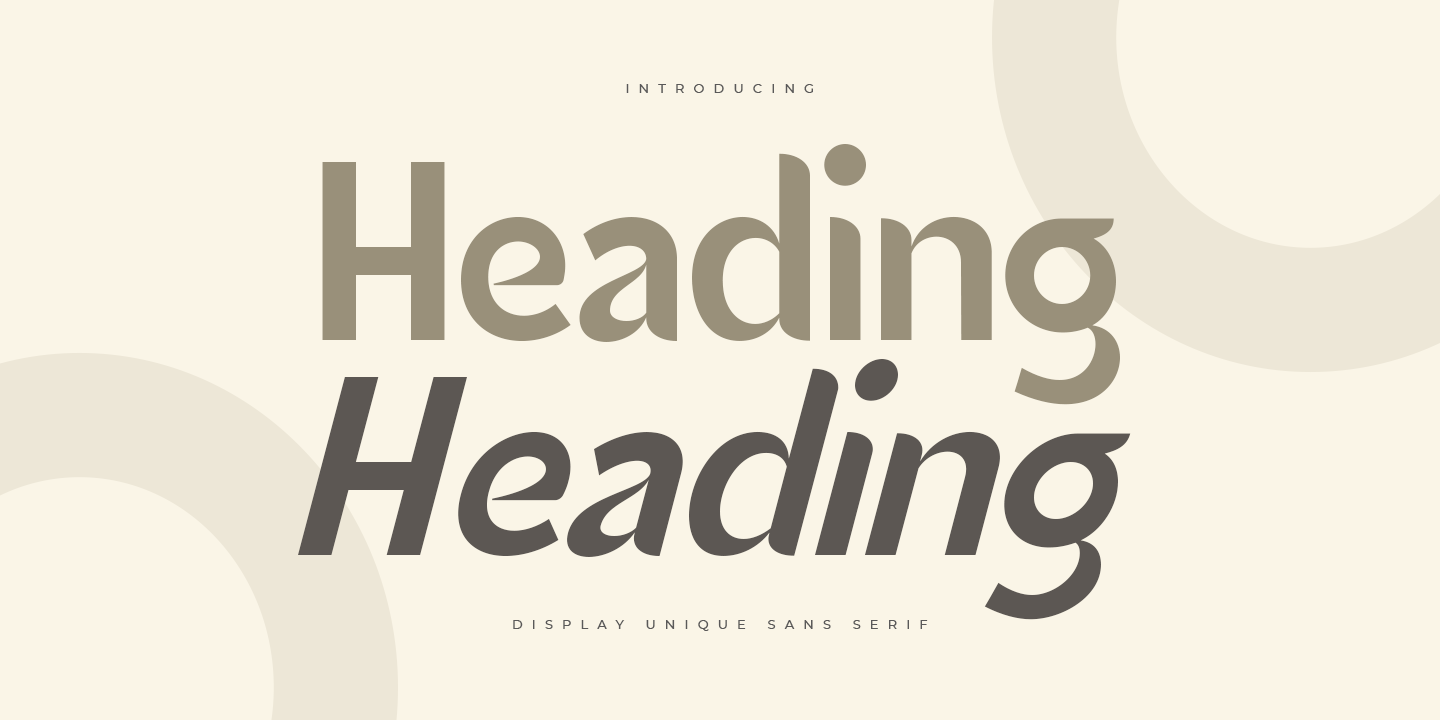
Heading Font is perfect for newspaper headlines, magazine titles, corporate presentations, website headers, book chapter titles, business proposals, academic papers, marketing brochures, press releases, annual reports, professional documents, and editorial layouts requiring strong visual hierarchy.
This font is exciting because it delivers commanding presence and exceptional readability that makes every headline and title impossible to ignore, featuring bold, authoritative letterforms designed specifically to capture attention and guide readers through content with crystal-clear visual hierarchy. The carefully engineered character proportions and optimized spacing ensure maximum impact at large sizes while maintaining perfect legibility across all media formats. Each letter demonstrates the fundamental principles of effective headline typography, creating text that leads readers naturally through information while establishing clear content structure and professional credibility.
The Heading Font family includes multiple weights from medium to black, with corresponding italic styles, condensed variants for space-efficient layouts, and comprehensive character sets supporting international languages. Professional versions often feature enhanced kerning pairs, stylistic alternates optimized for headline use, and extended punctuation sets designed specifically for editorial and corporate applications.
Whether you're developing professional publications, creating impactful marketing materials, or designing content-heavy websites, Heading Font Free Download provides the authoritative presence and structural clarity your project needs to organize information effectively and guide reader attention. This typeface ensures your most important messages receive the prominence they deserve while maintaining consistent visual hierarchy throughout your content. The font's versatile design makes it ideal for both traditional print media and modern digital applications. Professional designers and content creators will appreciate how this font brings immediate clarity to information architecture with its purpose-built headline functionality and reliable performance across all platforms.